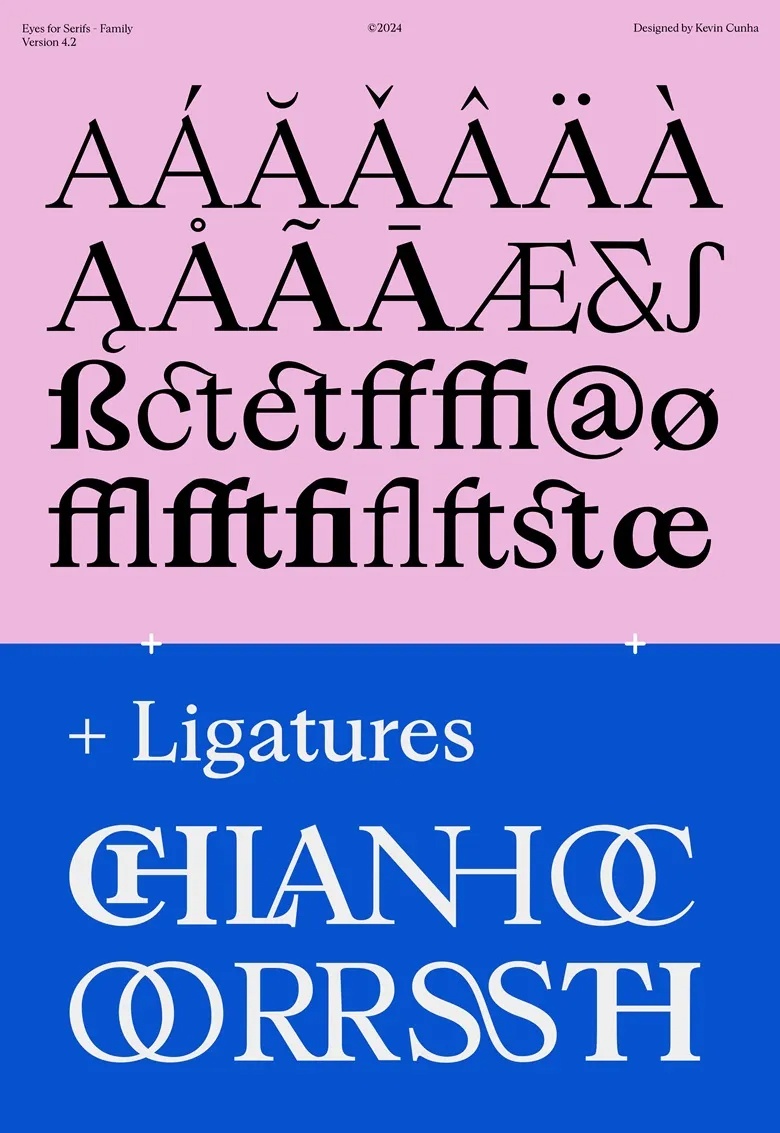
Eyes for Serifs is a versatile serif type family featuring four distinct styles, designed by Kevin Cunha. Inspired by Renaissance fonts, it brings a unique blend of tradition and personality, offering a more personal and playful touch.
Crafted with readability in mind, this typeface is ideal for editorial and printed materials, providing a sophisticated yet approachable aesthetic. With its refined details and subtle edge, Eyes for Serifs balances classic elegance with modern versatility, making it a great choice for publications, books, and design projects that require both style and clarity.